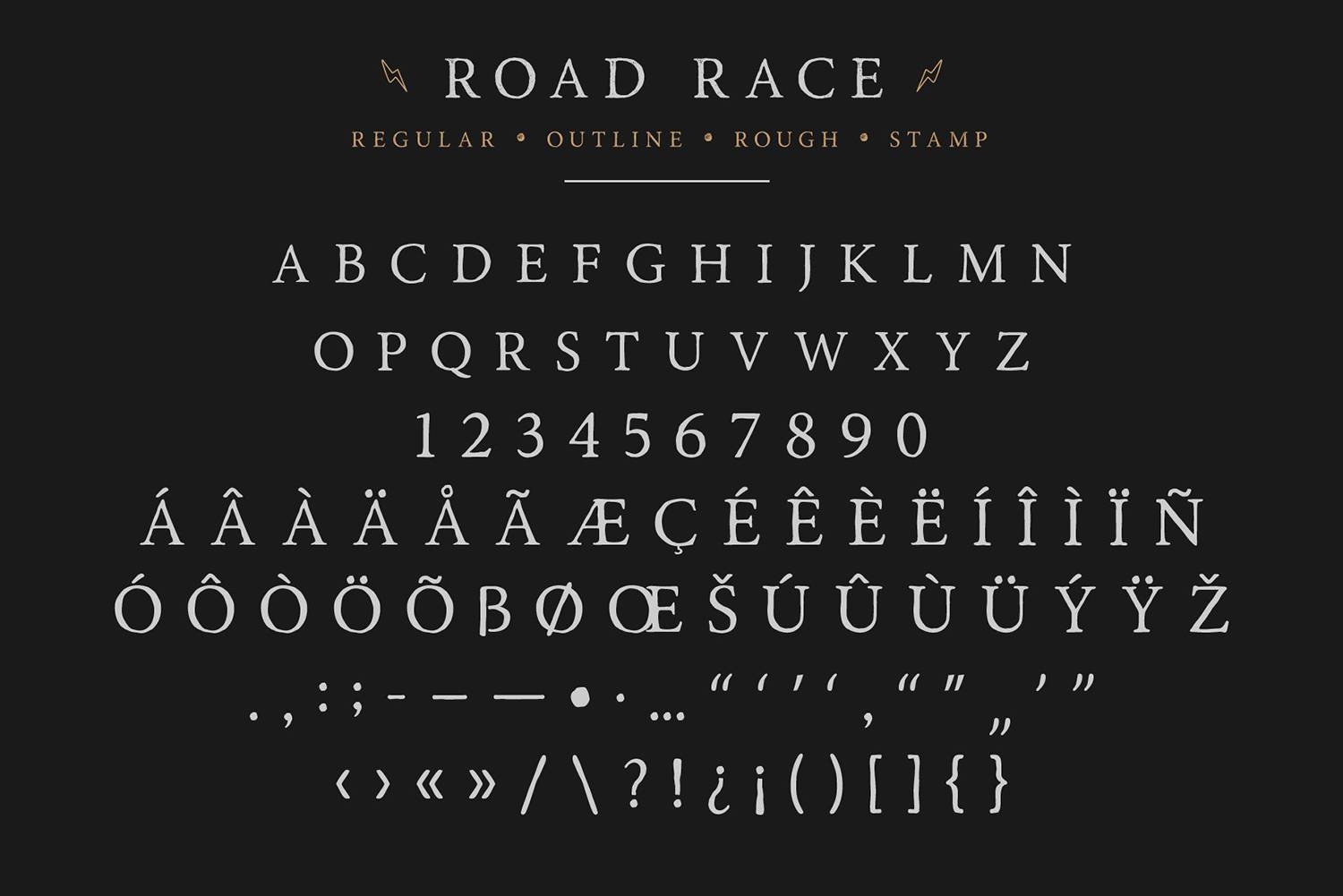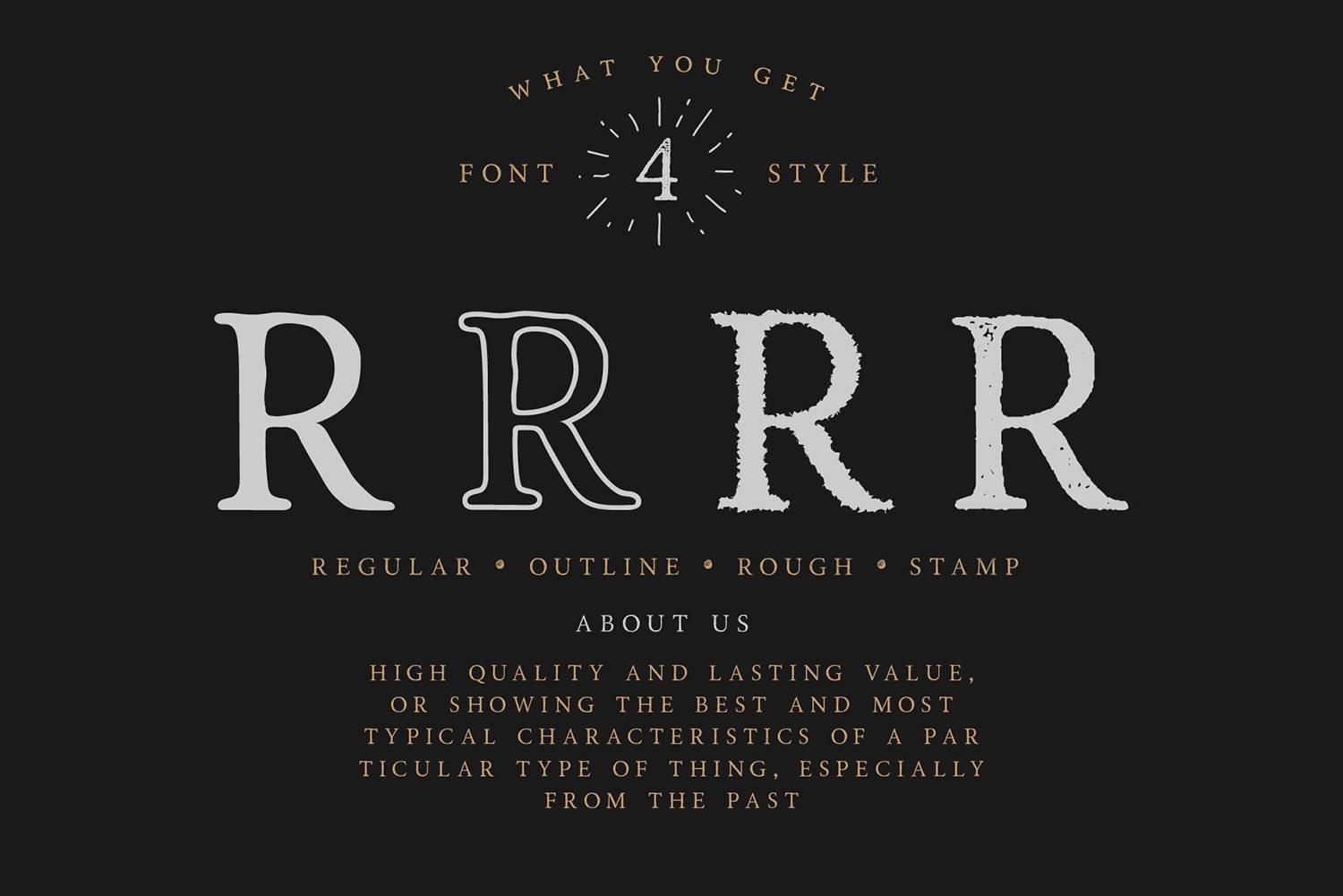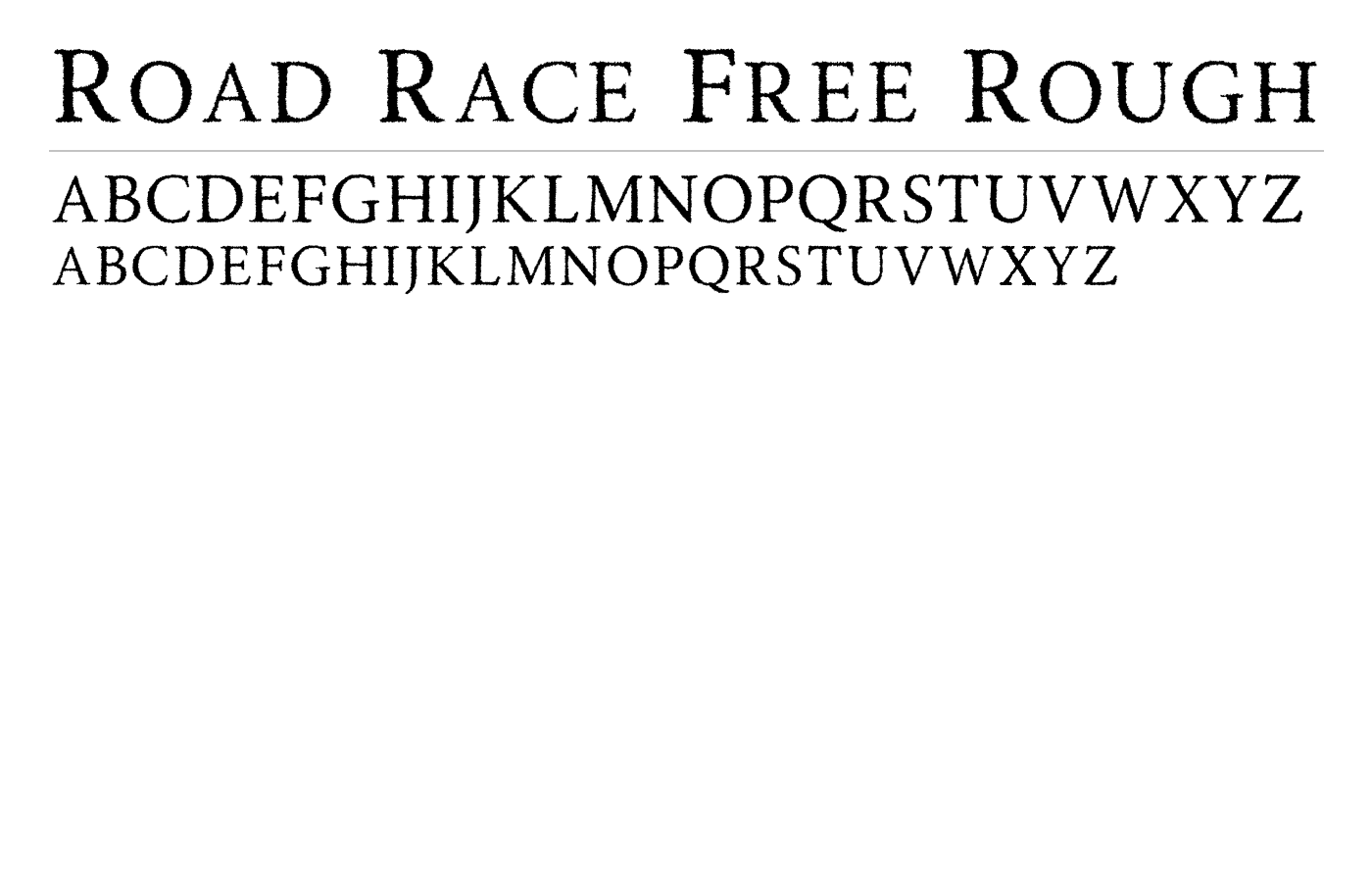
Road Race is a serif font with a distinct rough texture, offering a vintage and handcrafted feel. Its moderate weight, normal width, and classic serif details combined with the irregular edges create a lively, authentic look that works well for designs seeking an old-world charm with a unique, rugged touch. This font is ideal for branding, editorial headlines, and logos that want to convey personality and a nostalgic yet dynamic spirit.
Road Race Font